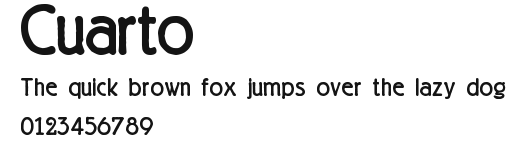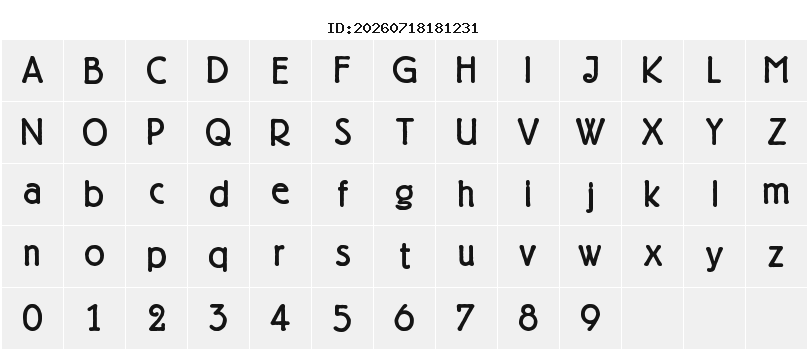
About Cuarto.ttf
Cuarto.ttf is a modern, elegant sans-serif font designed for ultimate readability and visual harmony. Perfect for branding, headlines, web design, and print materials.